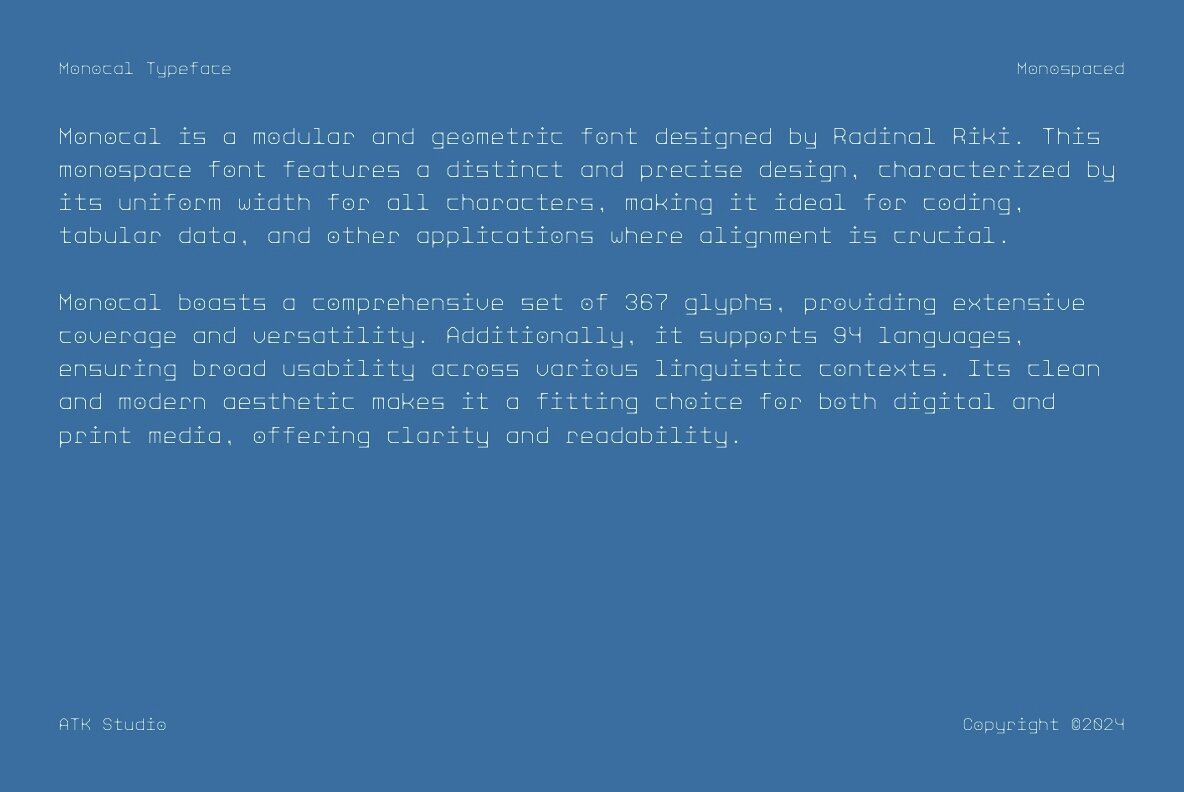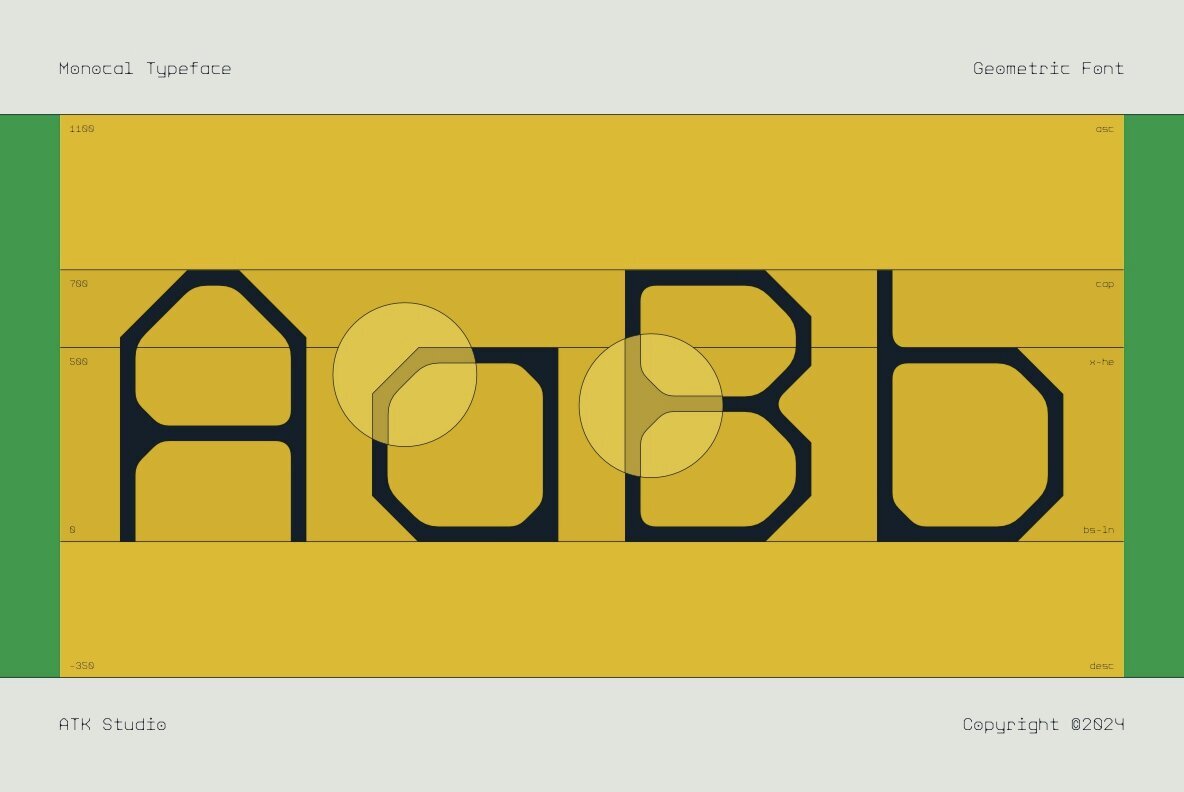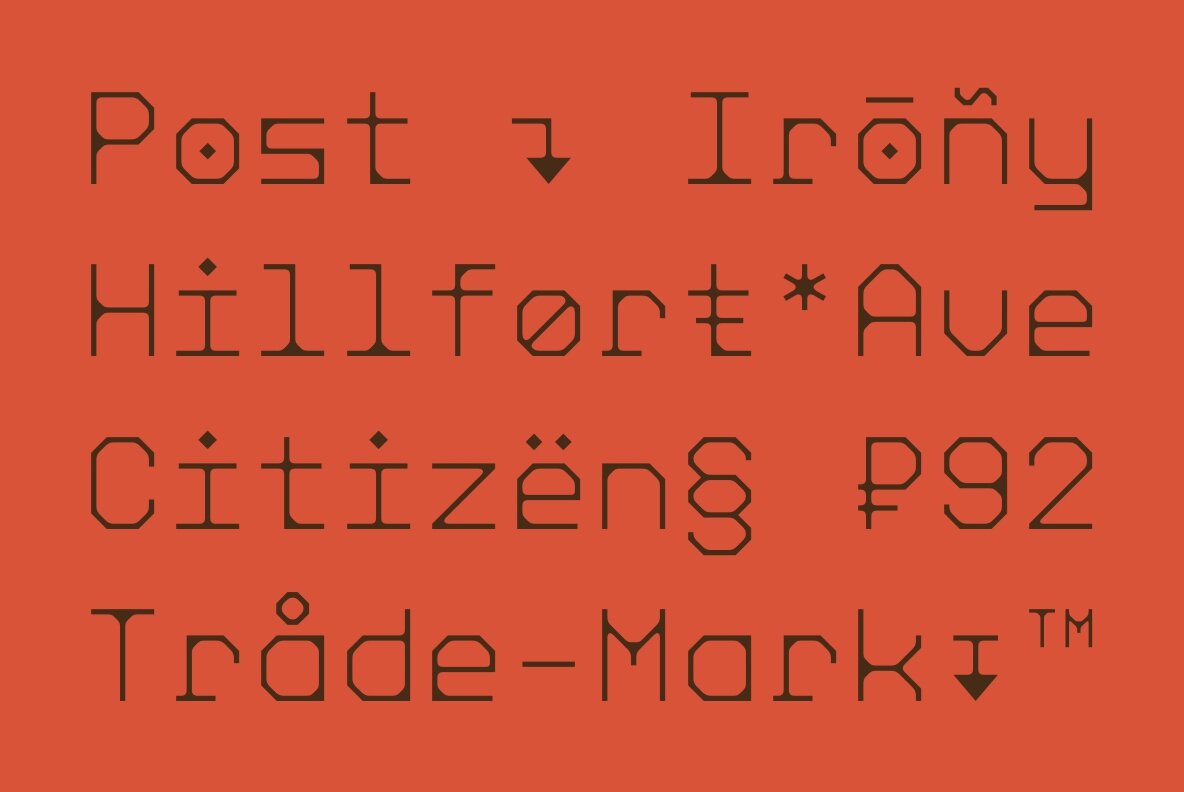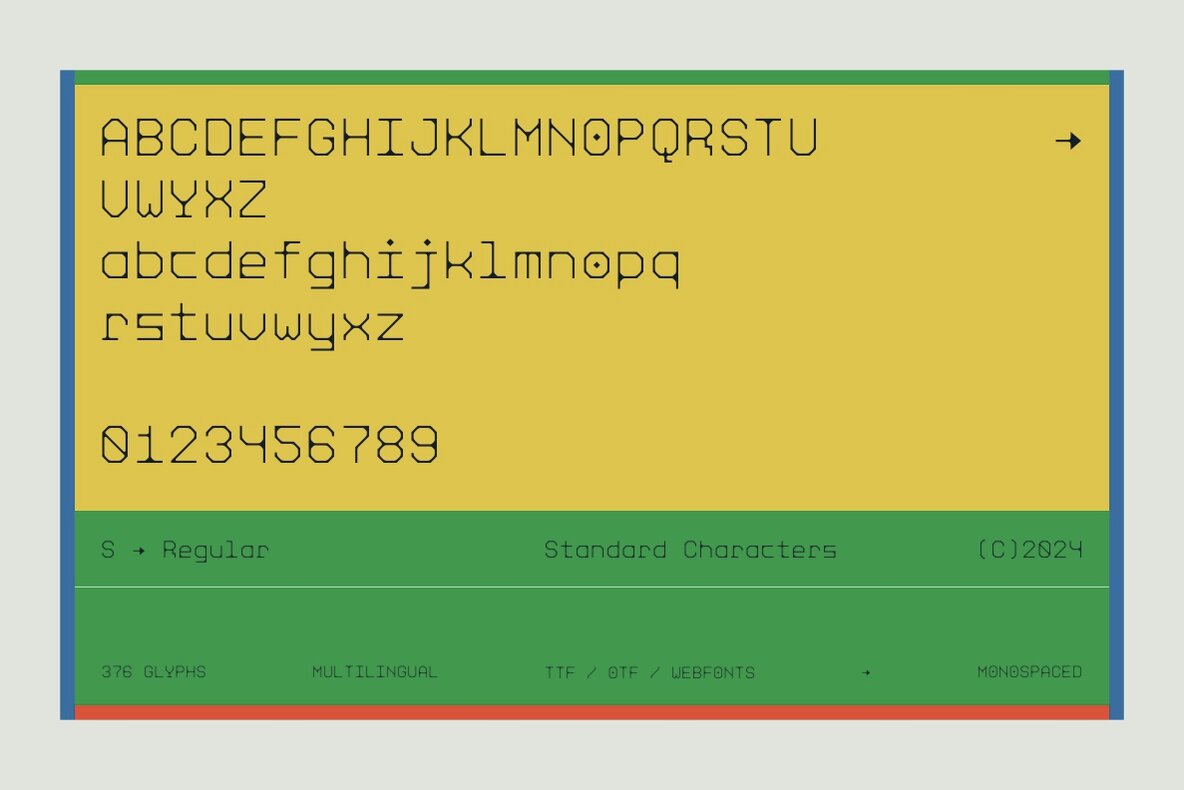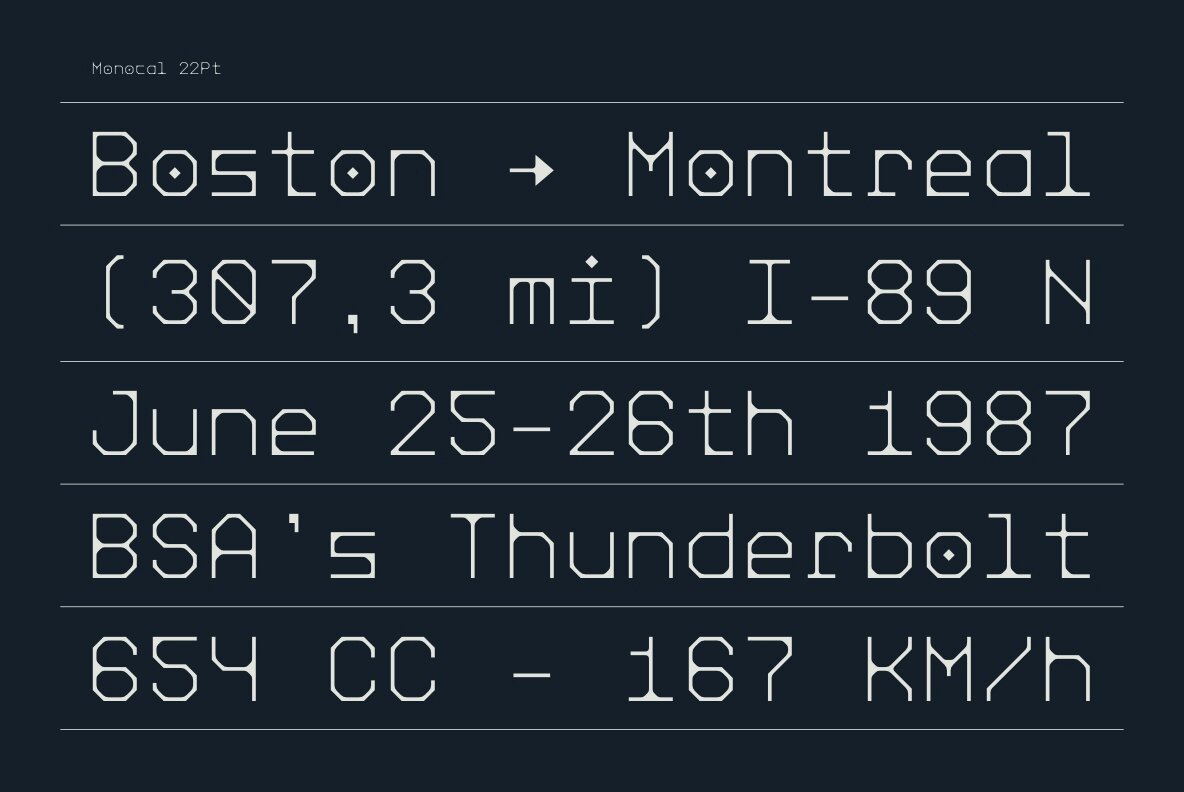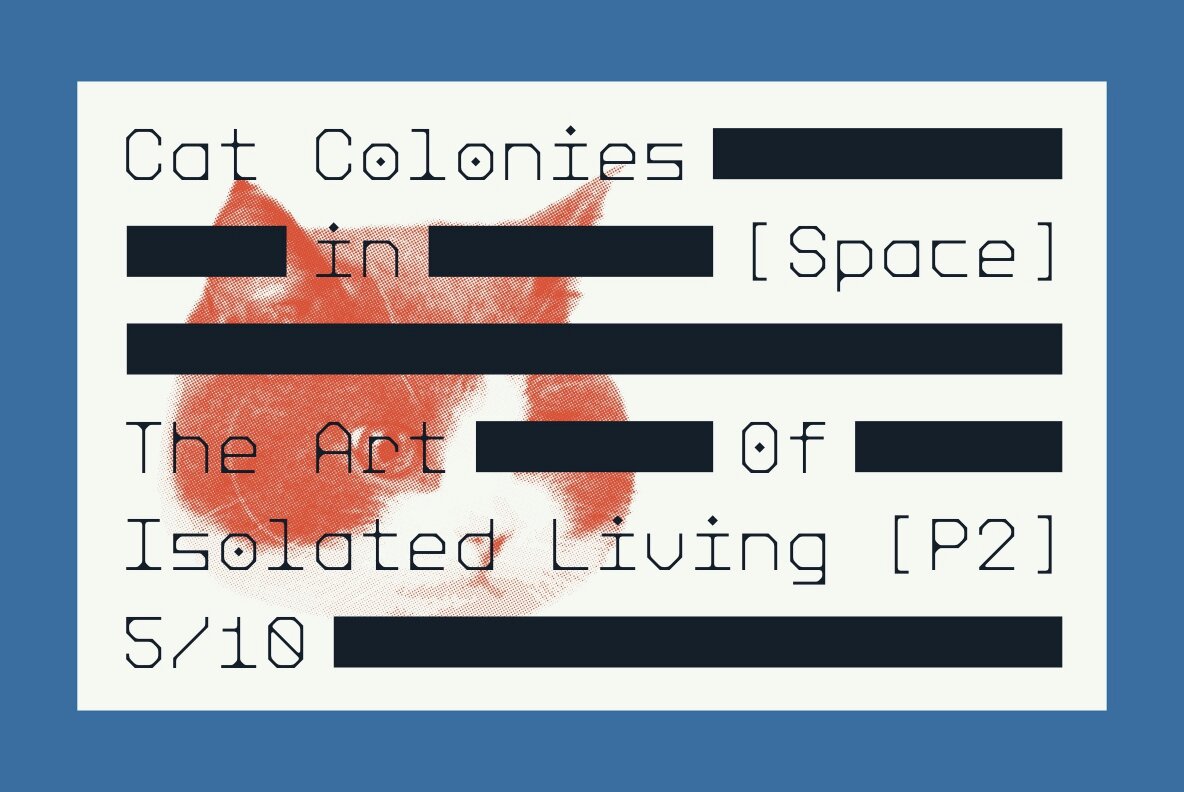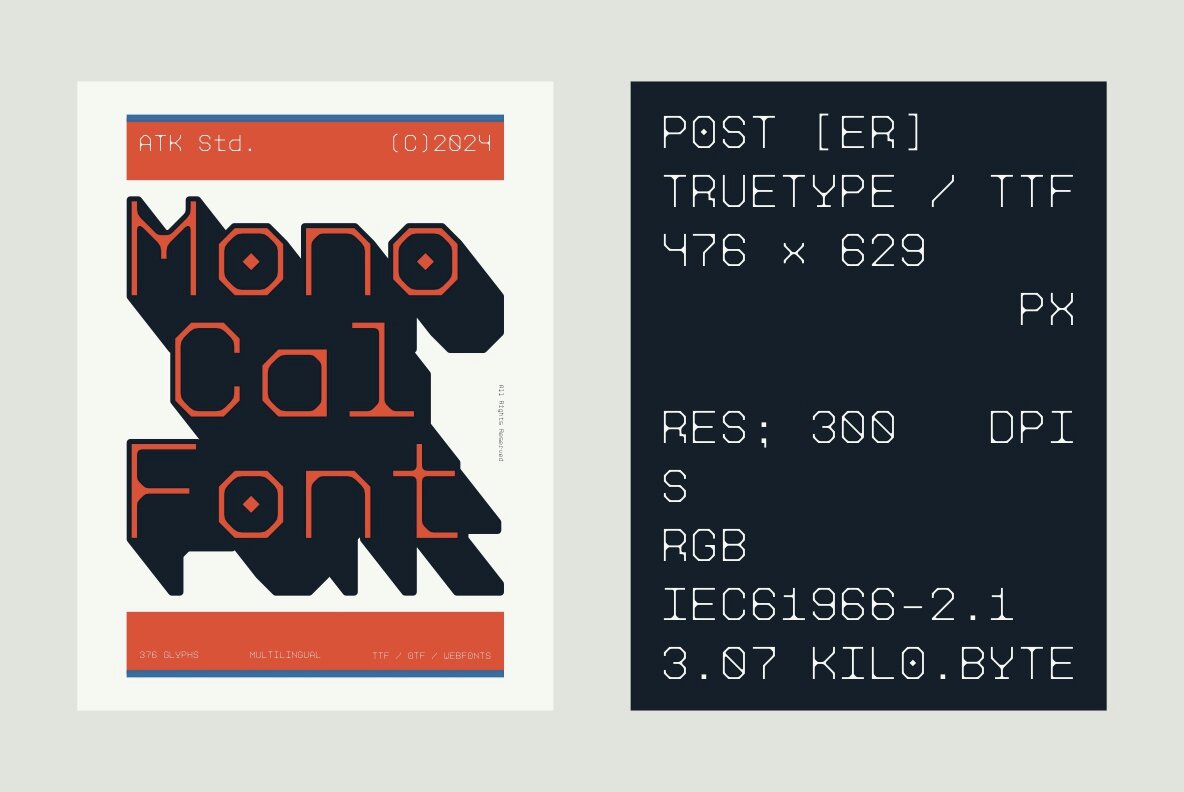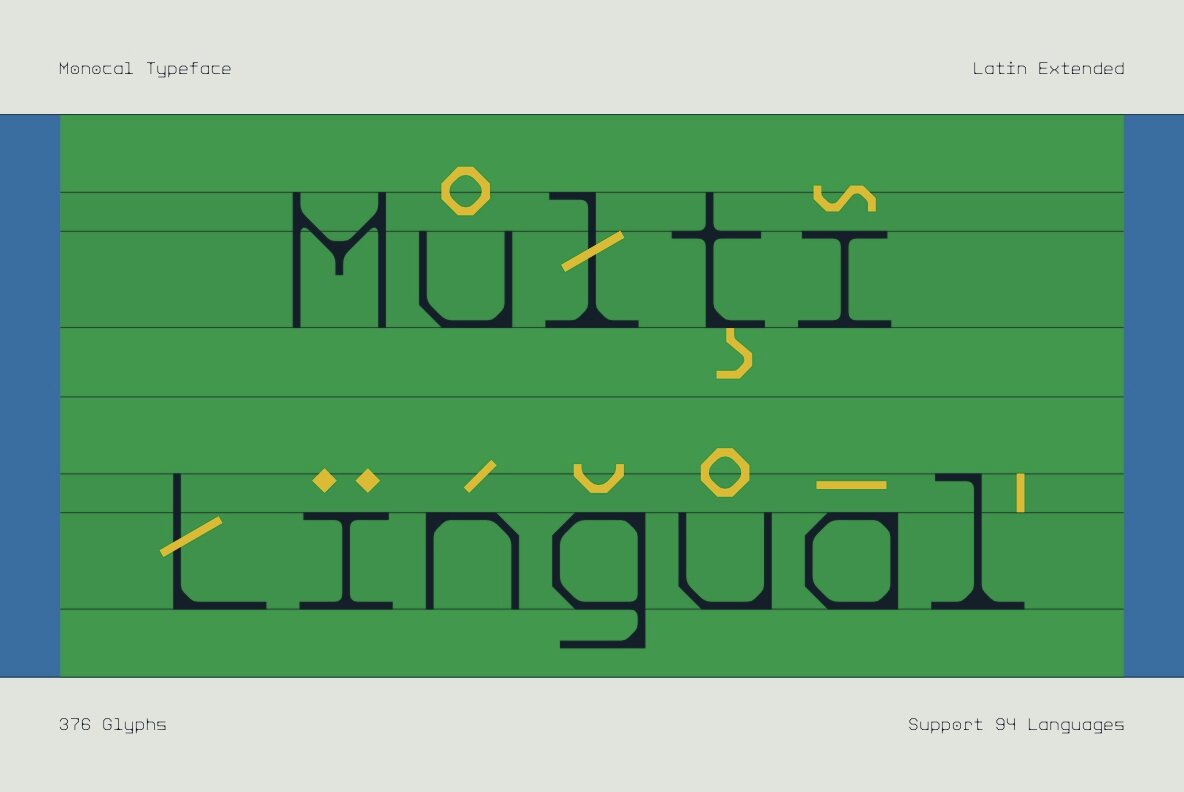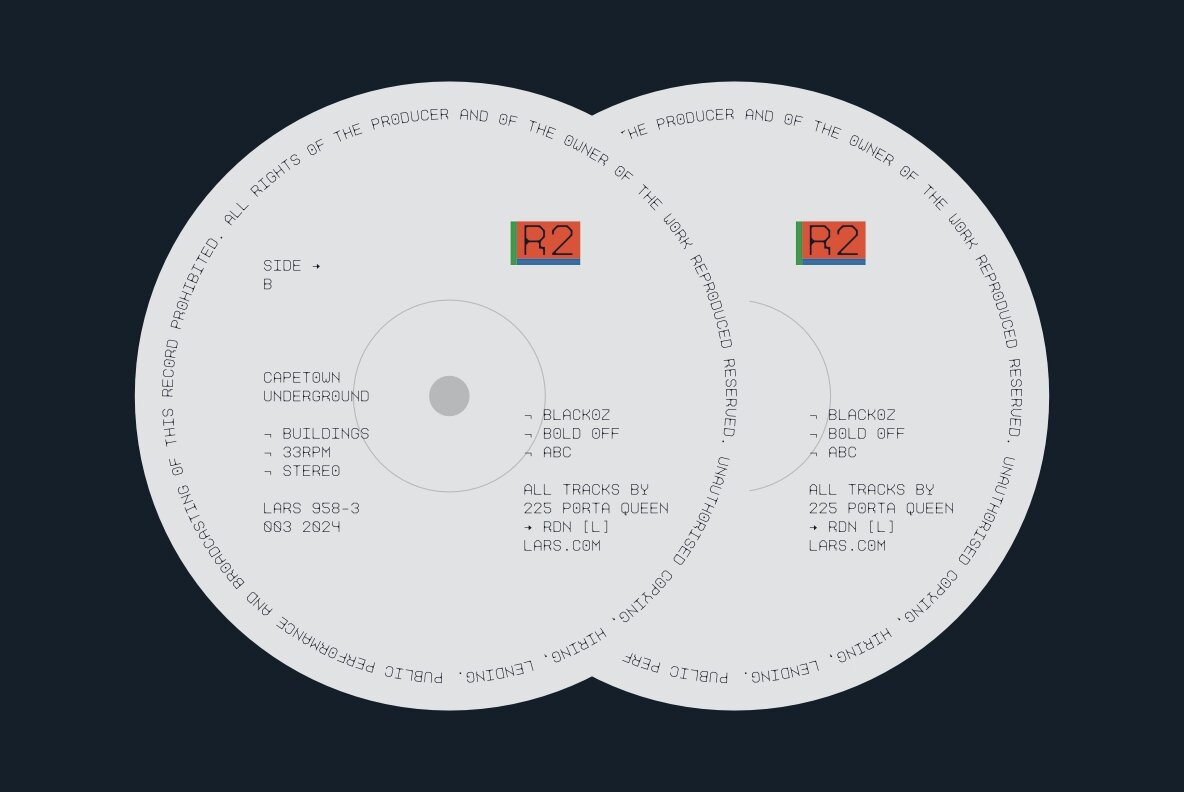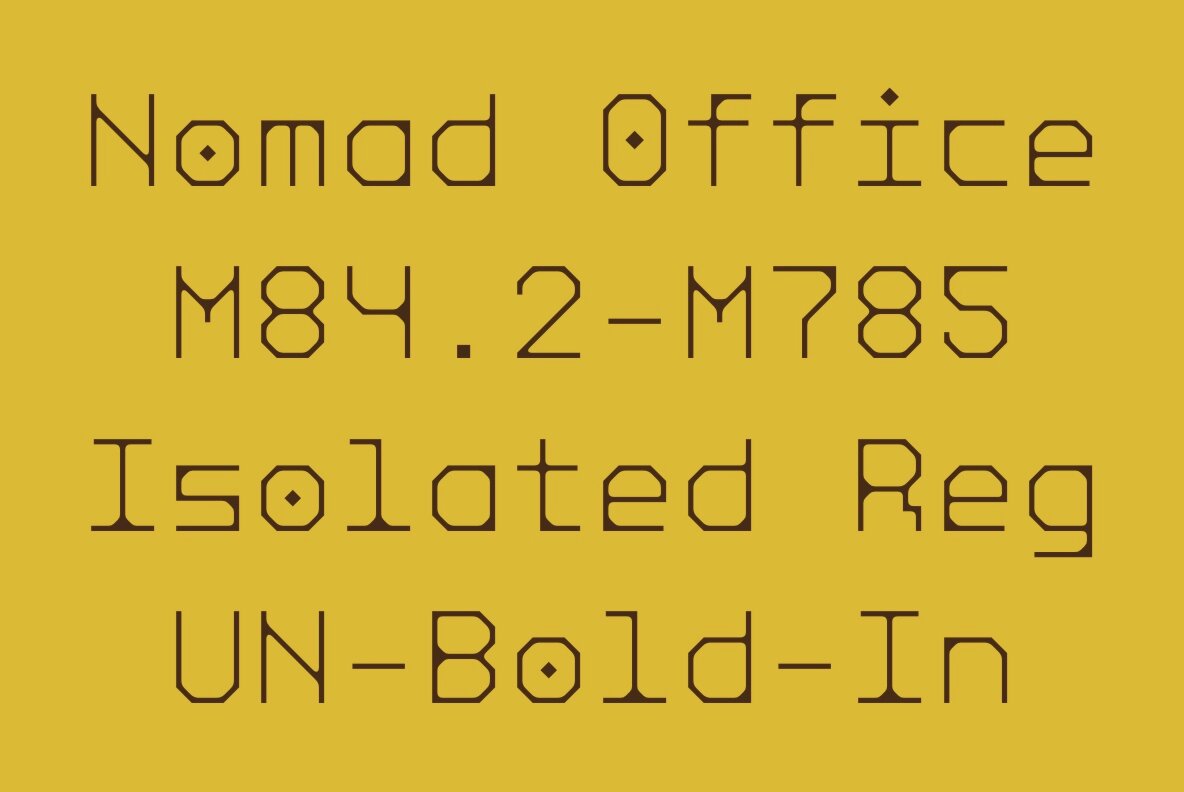
Monocal Font
Monocal Regular
Monocal is a modular and geometric font designed by Radinal Riki. This monospace font features a distinct and precise design, characterized by its uniform width for all characters, making it ideal for coding, tabular data, and other applications where alignment is crucial. Monocal boasts a comprehensive set of 367 glyphs, providing extensive coverage and versatility. Additionally, it supports 94 languages, ensuring broad usability across various linguistic contexts. Its clean and modern aesthetic makes it a fitting choice for both digital and print media, offering clarity and readability.